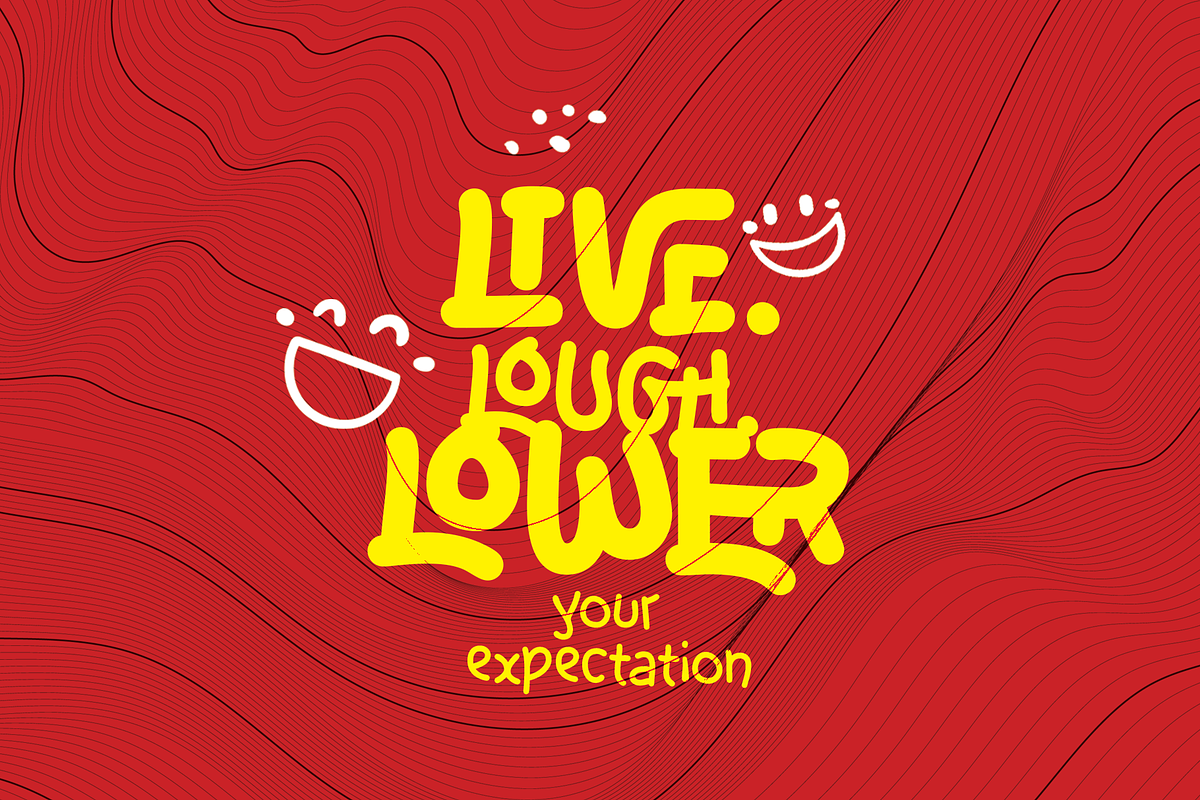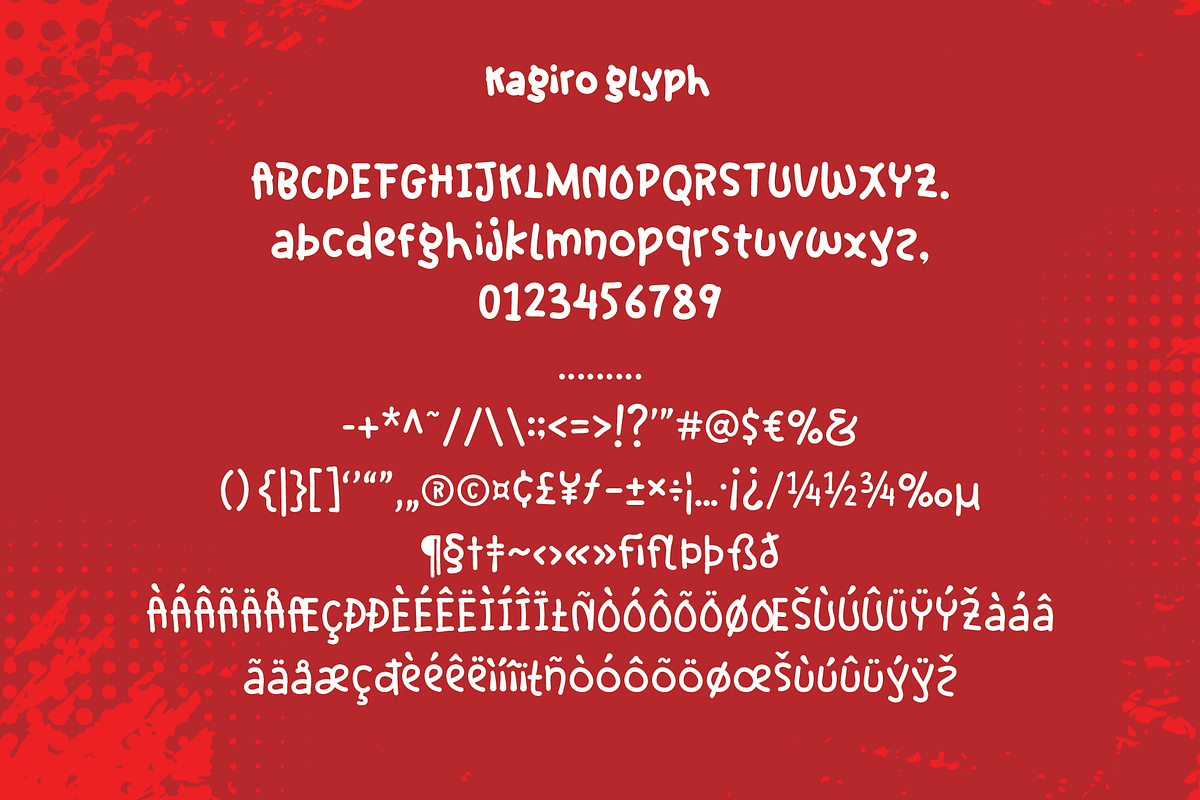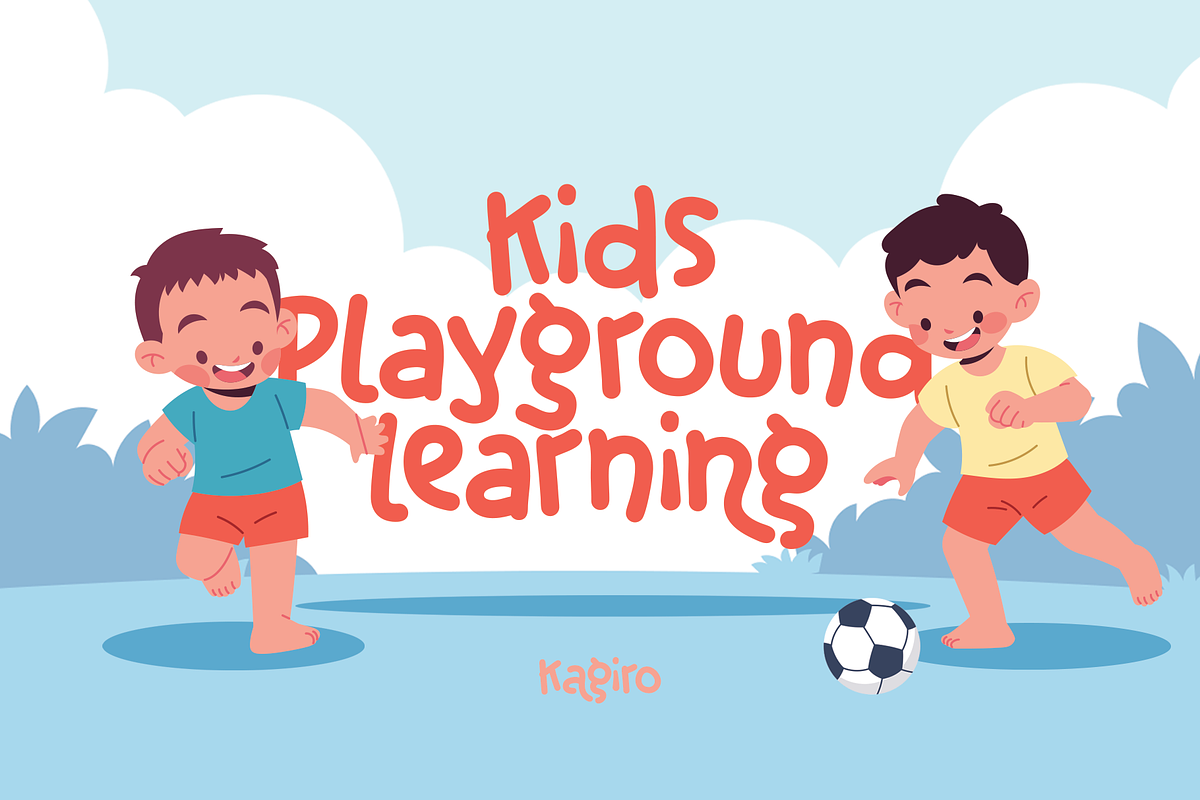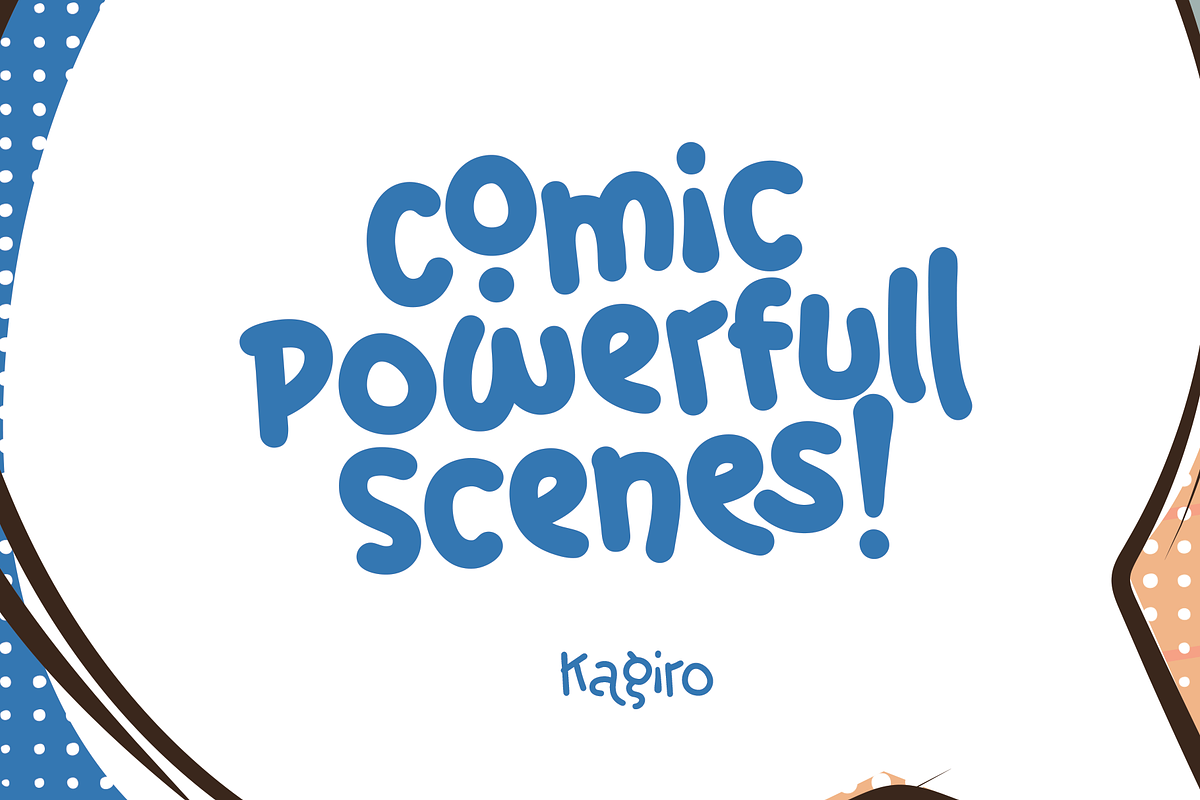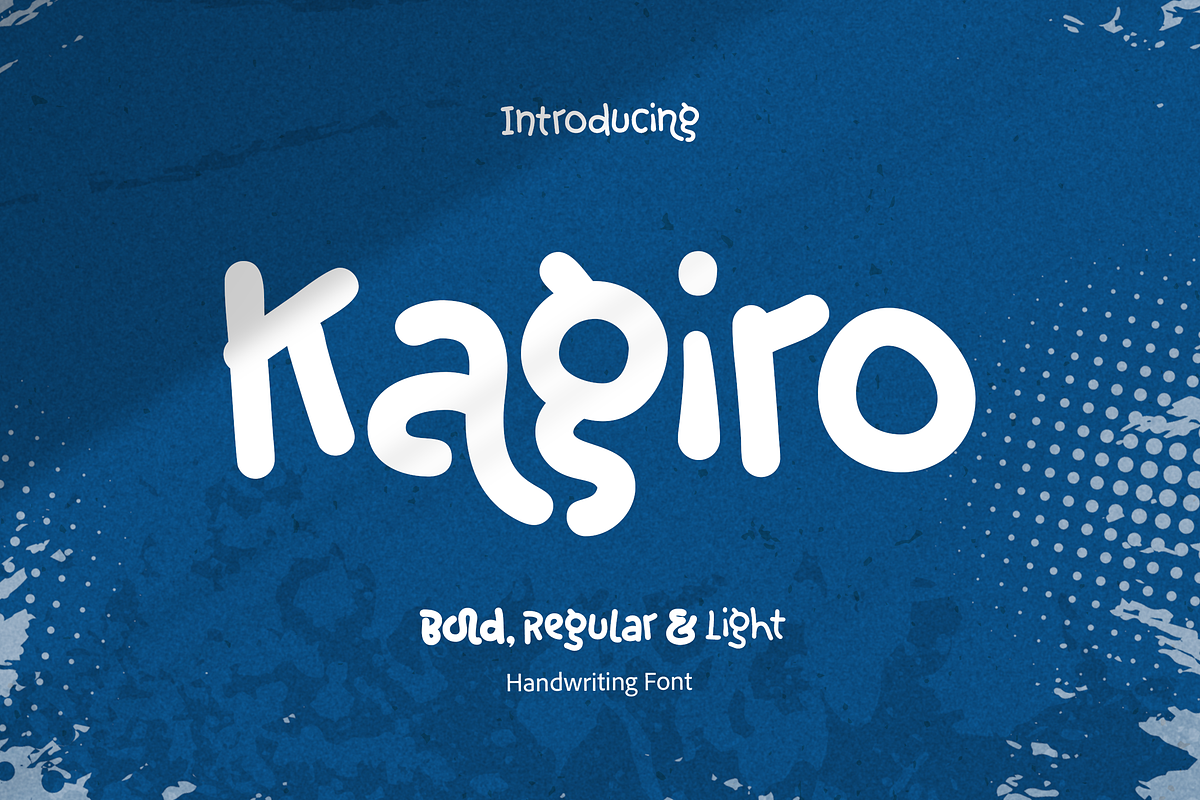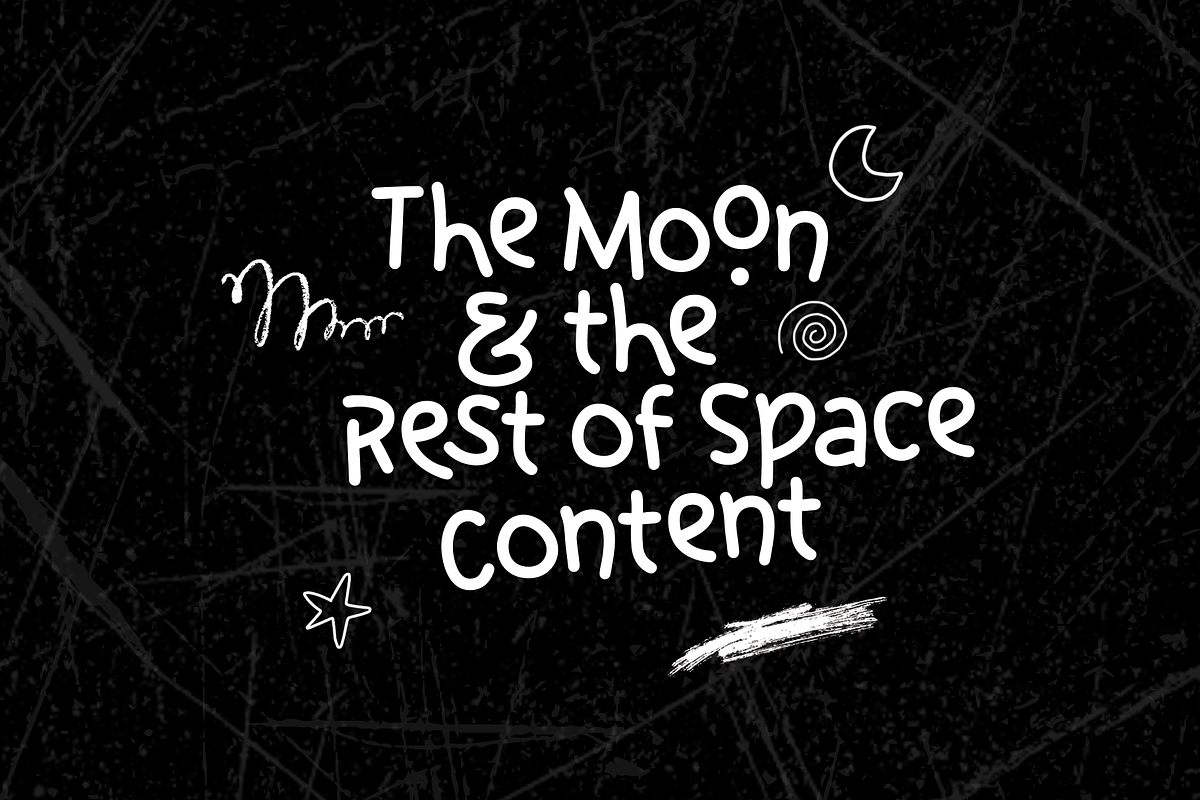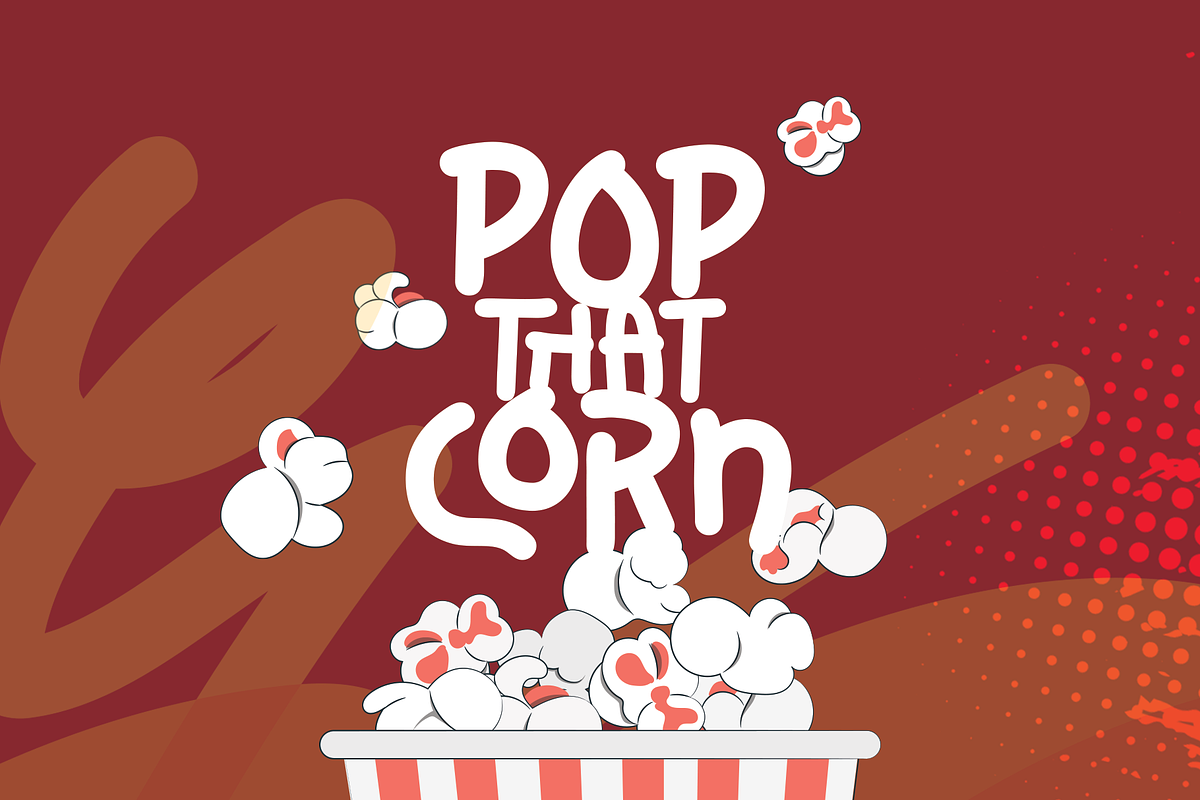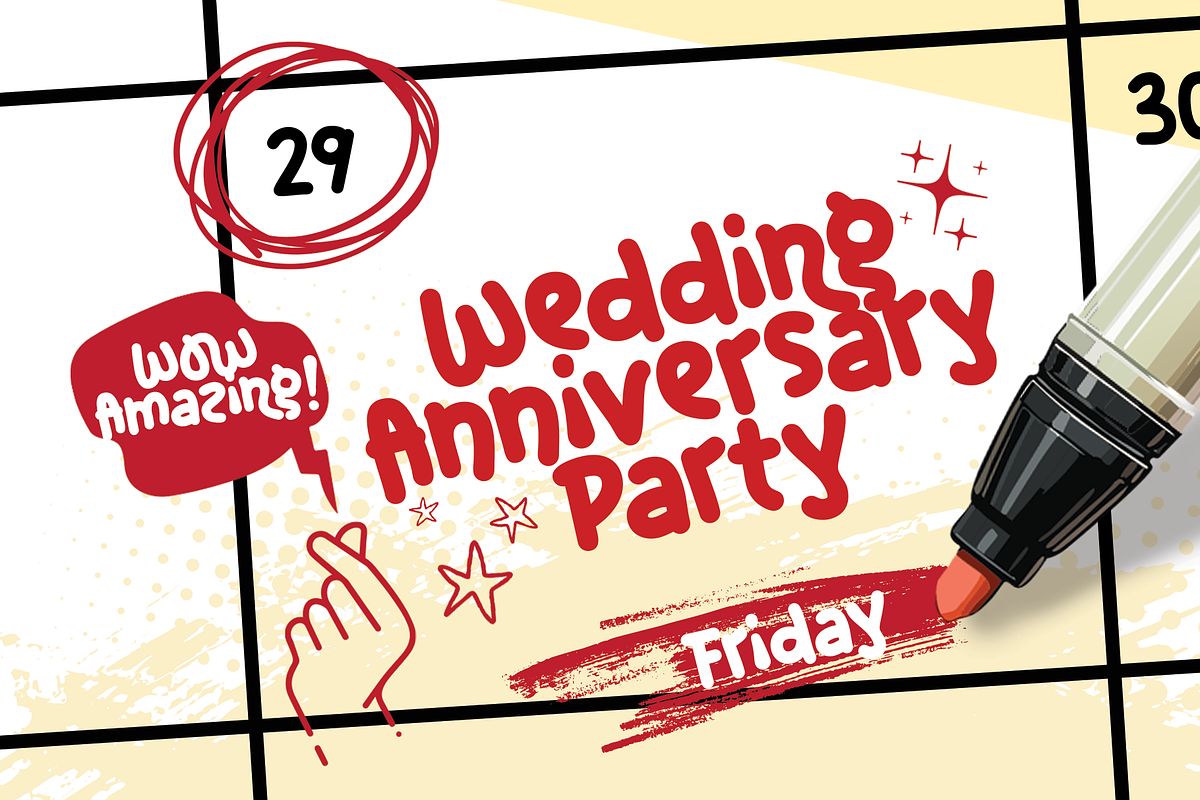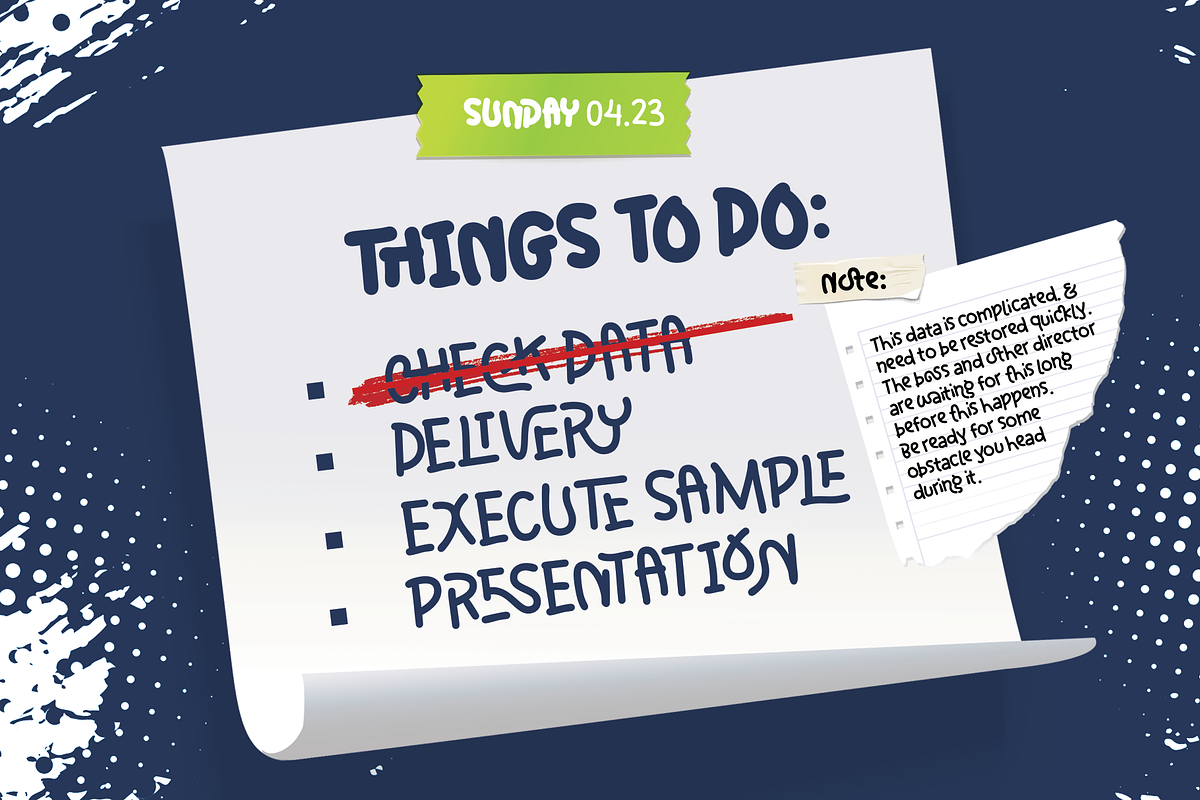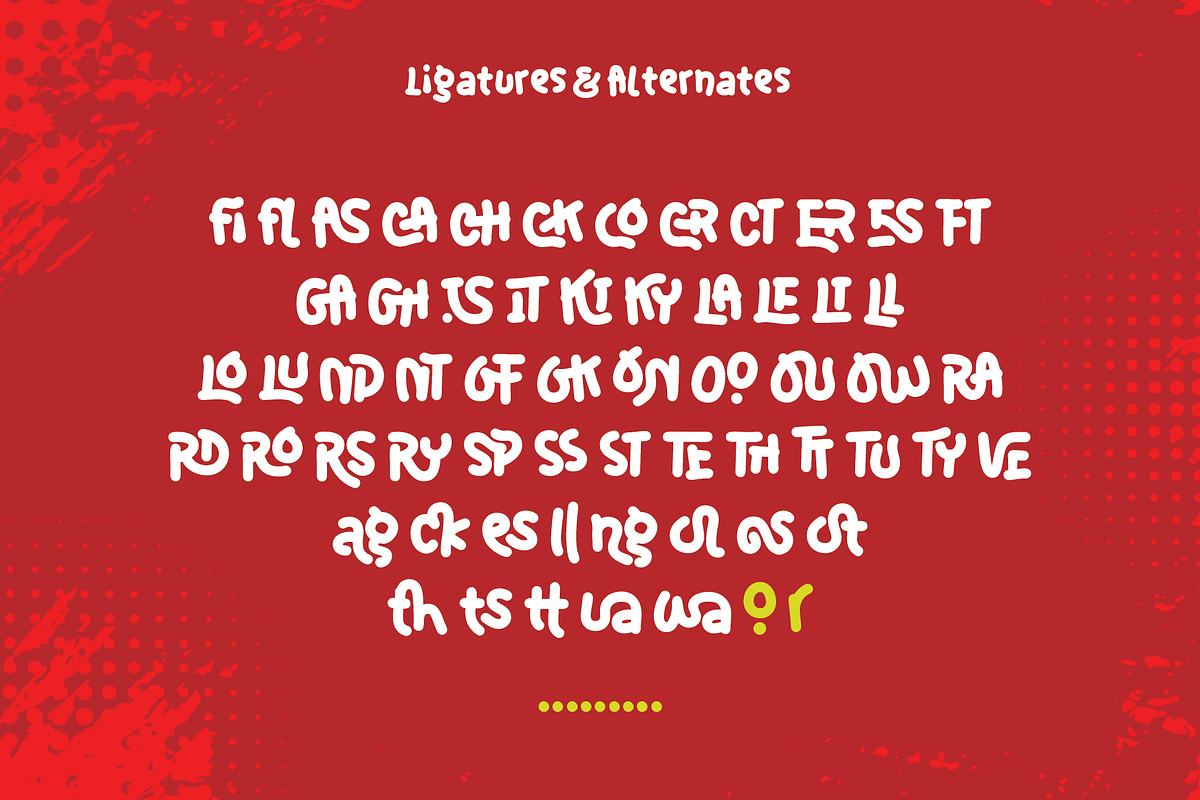
Kagiro Family Handwriting
Kagiro is a modern, hand-lettered font that blends uniqueness with elegance. Its fluid, artistic strokes give it a distinctive, handcrafted appeal, perfect for creative projects that seek individuality. Available in three versatile weights, Kagiro offers flexibility in design, allowing you to create dynamic compositions with bold, medium, and light variations. Whether for branding, invitations, or social media, Kagiro's modern charm and organic flow make it an excellent choice for anyone looking to add a personal touch to their typography.
- Handwriting Font
- Basic Latin Glyphs
- Unique Characters
- ligatures & Alternates
- Currencies